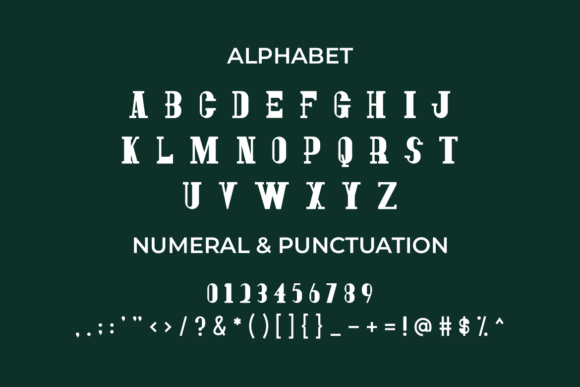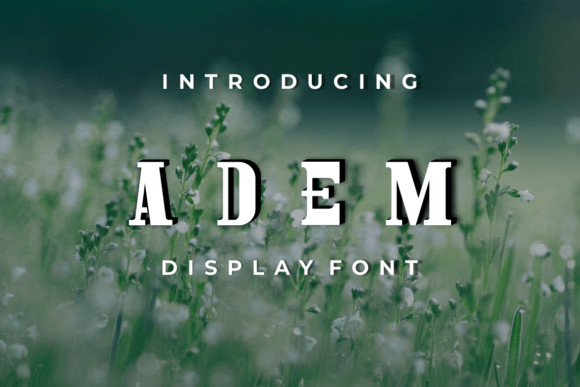
Introducing Adem Font: The Modern and Cool Display Font You Need
Are you tired of using the same old fonts in your design projects? Do you want to add a touch of modernity and coolness to your creations? Look no further than Adem Font, a stunning display font that’s sure to take your designs to the next level. In this article, we’ll explore the features and benefits of Adem Font, and why it’s a must-have for designers and crafters.
What is Adem Font?
Adem Font is a modern and cool display font designed to make a statement. With its sleek and clean lines, this font is perfect for adding a touch of sophistication and style to your projects. Whether you’re working on a logo, branding, or advertising design, Adem Font is the perfect choice.
Key Features of Adem Font
- Modern and Cool Design: Adem Font boasts a modern and cool design that’s sure to grab attention. Its unique and stylish lines make it perfect for creating stunning designs.
- High-Quality Letters: The font features high-quality letters that are crisp and clear, making it perfect for use in a variety of design projects.
- Easy to Read: Despite its modern and cool design, Adem Font is easy to read, making it perfect for use in body text as well as headlines.
- Versatile: Adem Font is a versatile font that can be used in a variety of design projects, from logos and branding to advertising and packaging.
Benefits of Using Adem Font
So why should you choose Adem Font for your design projects? Here are just a few benefits of using this amazing font:
- Adds a Touch of Modernity: Adem Font adds a touch of modernity to your designs, making them stand out from the crowd.
- Increases Legibility: The font’s clear and crisp lines make it easy to read, even at small sizes.
- Enhances Creativity: With Adem Font, you can create stunning designs that showcase your creativity and style.
- Perfect for Designers and Crafters: Whether you’re a professional designer or a crafter, Adem Font is the perfect choice for anyone looking to add a touch of style to their projects.
Tips for Getting the Most Out of Adem Font
Here are a few tips for getting the most out of Adem Font:
- Use it as a Display Font: Adem Font is perfect for use as a display font, making it ideal for headlines and titles.
- Experiment with Different Sizes: Don’t be afraid to experiment with different sizes to find the perfect fit for your design.
- Pair it with Other Fonts: Adem Font pairs well with other fonts, making it easy to create stunning combinations.
In conclusion, Adem Font is a modern and cool display font that’s perfect for designers and crafters. With its sleek and clean lines, high-quality letters, and versatility, it’s the perfect choice for adding a touch of style to your projects. So why wait? Download Adem Font today and start creating stunning designs that showcase your creativity and style!
Adem is a modern and cool display font. Add it confidently to your projects and enjoy the results!